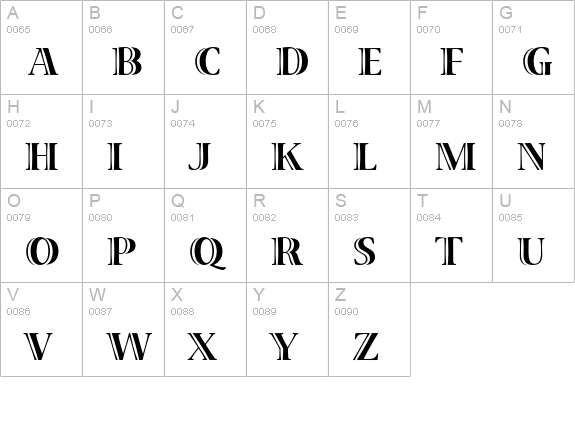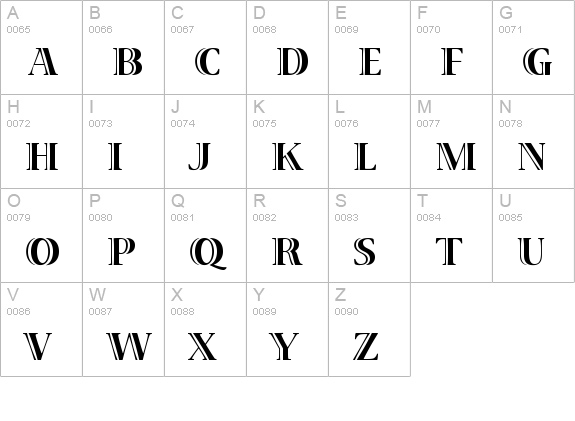
Viva Std Bold Font Details
Viva Std Bold is a strong, high-contrast variant in the Viva typeface family \xE2\x80\x94 well suited to headlines, attention-grabbing titles, and strong calls-to-action.
Introducing Viva Std Bold font, a bold and charismatic typeface that exudes confidence and strength. This powerful font is perfect for making a bold statement in your design projects, whether it be for headlines, logos, or any other creative endeavor. Viva Std Bold boasts a balanced and refined letterform, carefully crafted to catch the eye and captivate the audience. Its bold strokes and clean lines command attention, while its subtle curves add a touch of elegance and sophistication. With its versatile nature, Viva Std Bold is suitable for a wide range of design styles, from modern and minimalist to bold and expressive. It effortlessly blends into various design projects, enhancing their visual impact and leaving a lasting impression. The best part? Viva Std Bold is available for free download at FontsMarket.com. Yes, you read that right - this exceptional font can be yours at no cost. FontsMarket.com is a trusted source for high-quality fonts, and they are generously offering Viva Std Bold as a free download, making it accessible to all aspiring designers and creatives. So why wait? Elevate your designs with the captivating power of Viva Std Bold. Download it for free at FontsMarket.com and let your creativity soar to new heights.